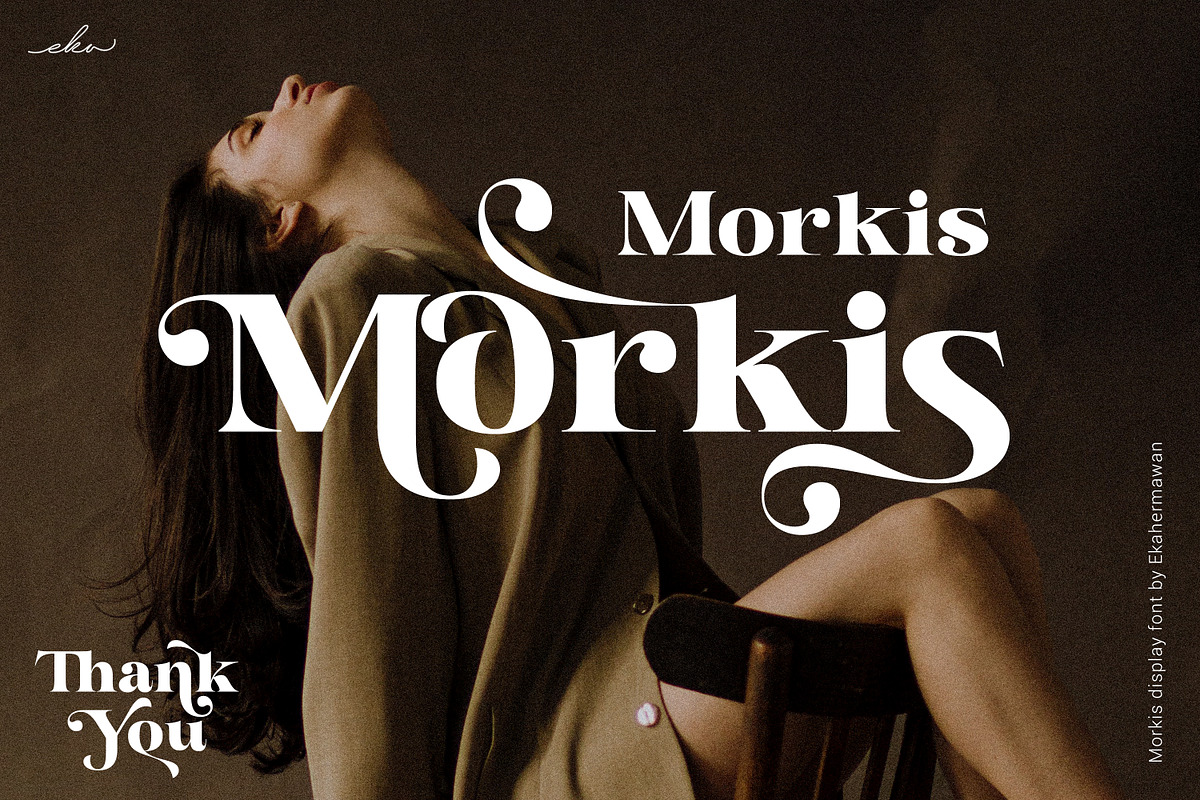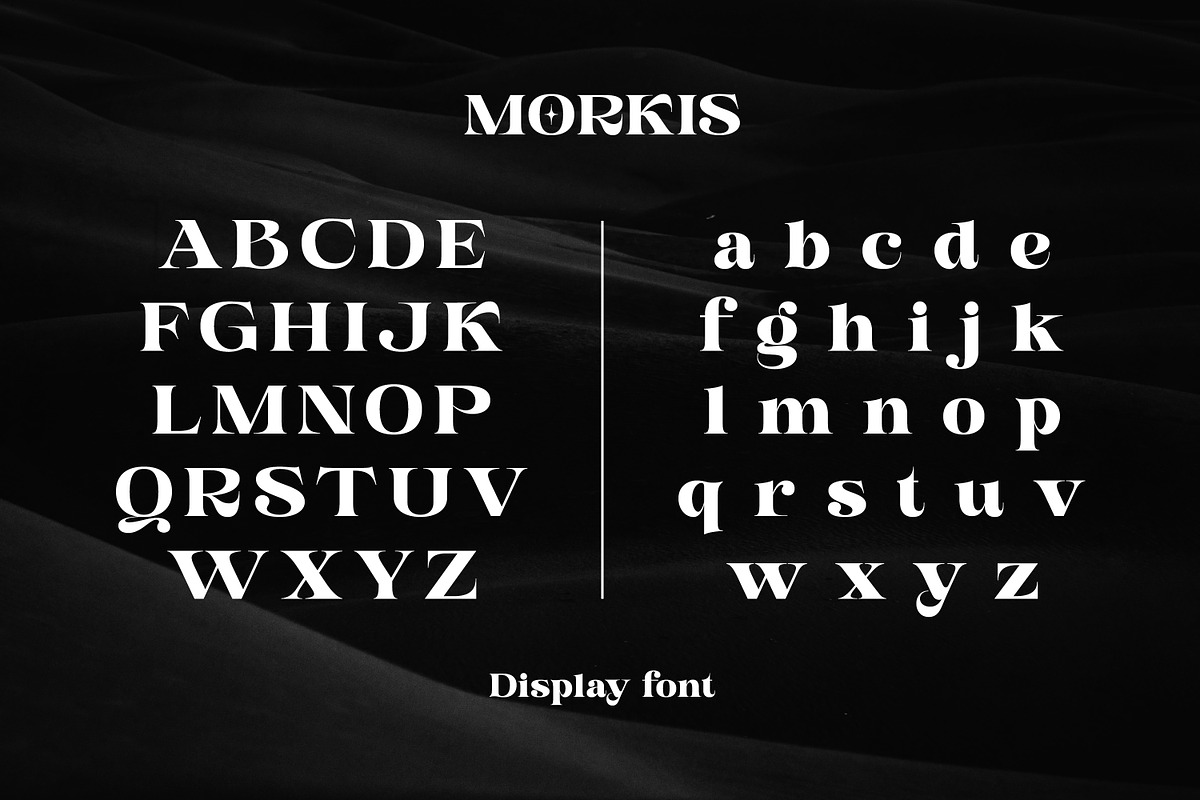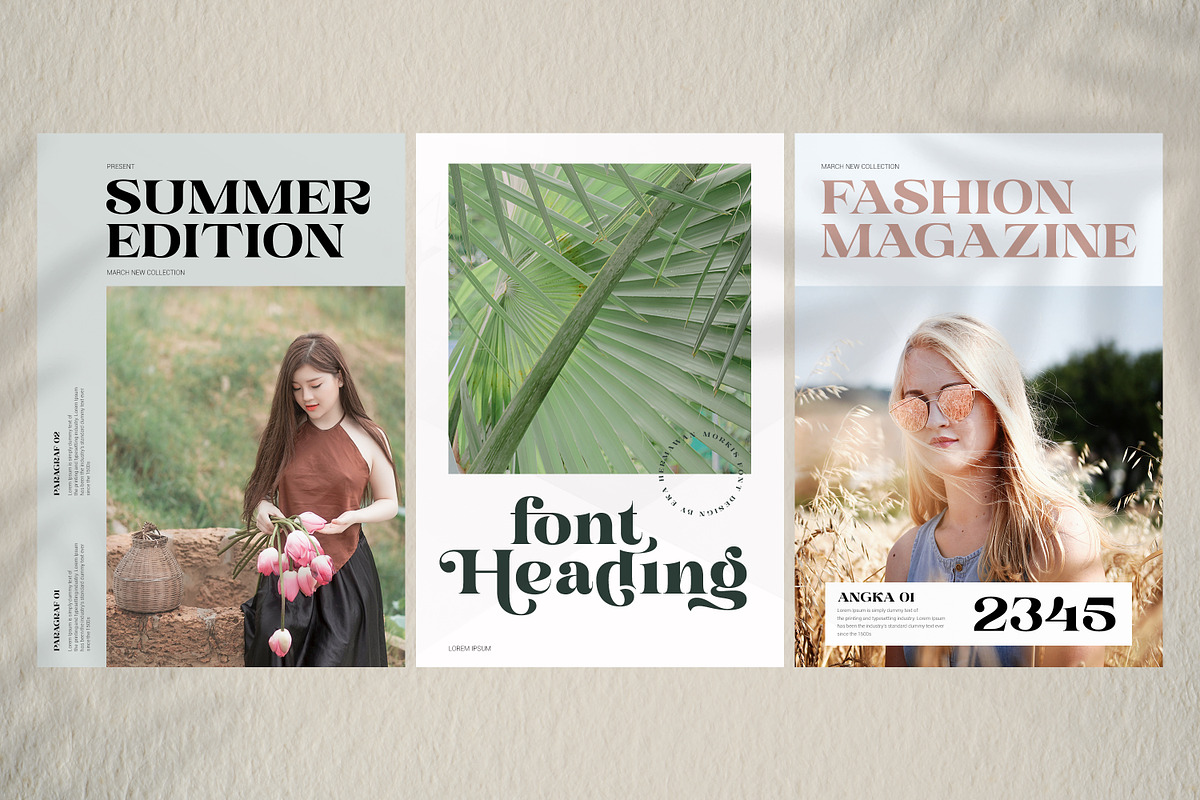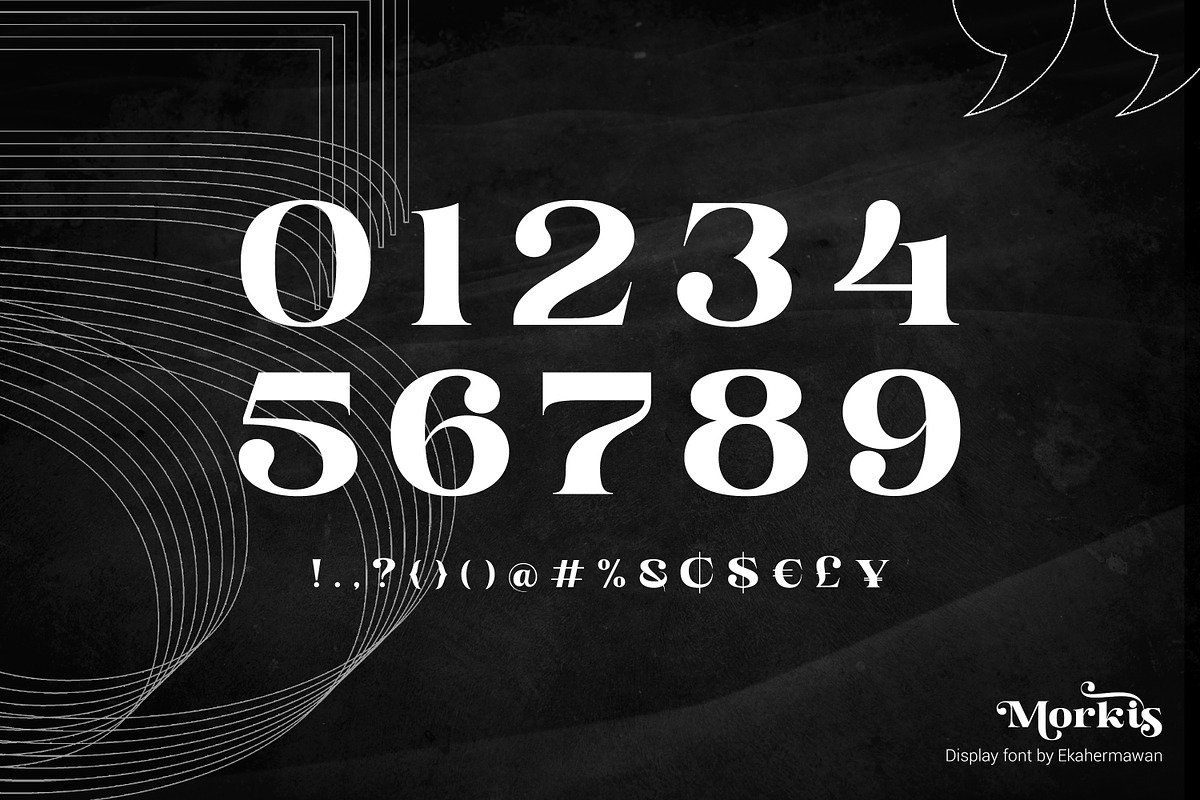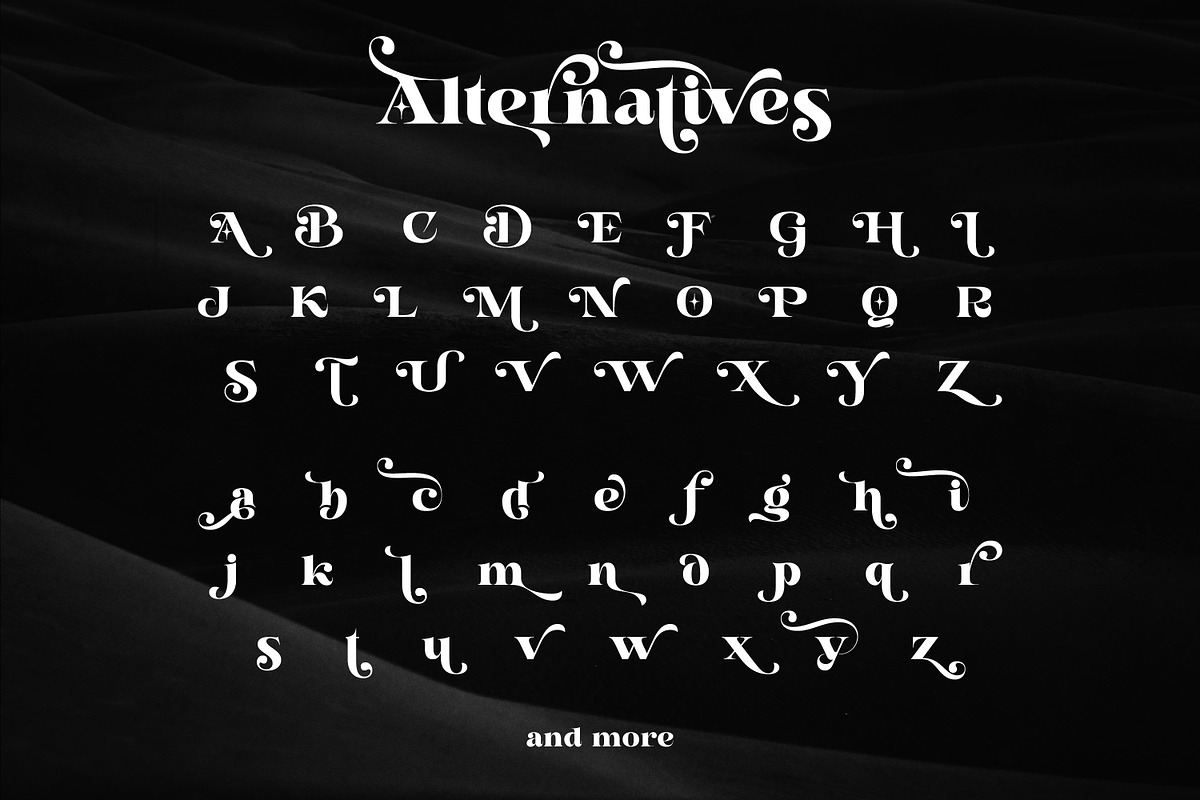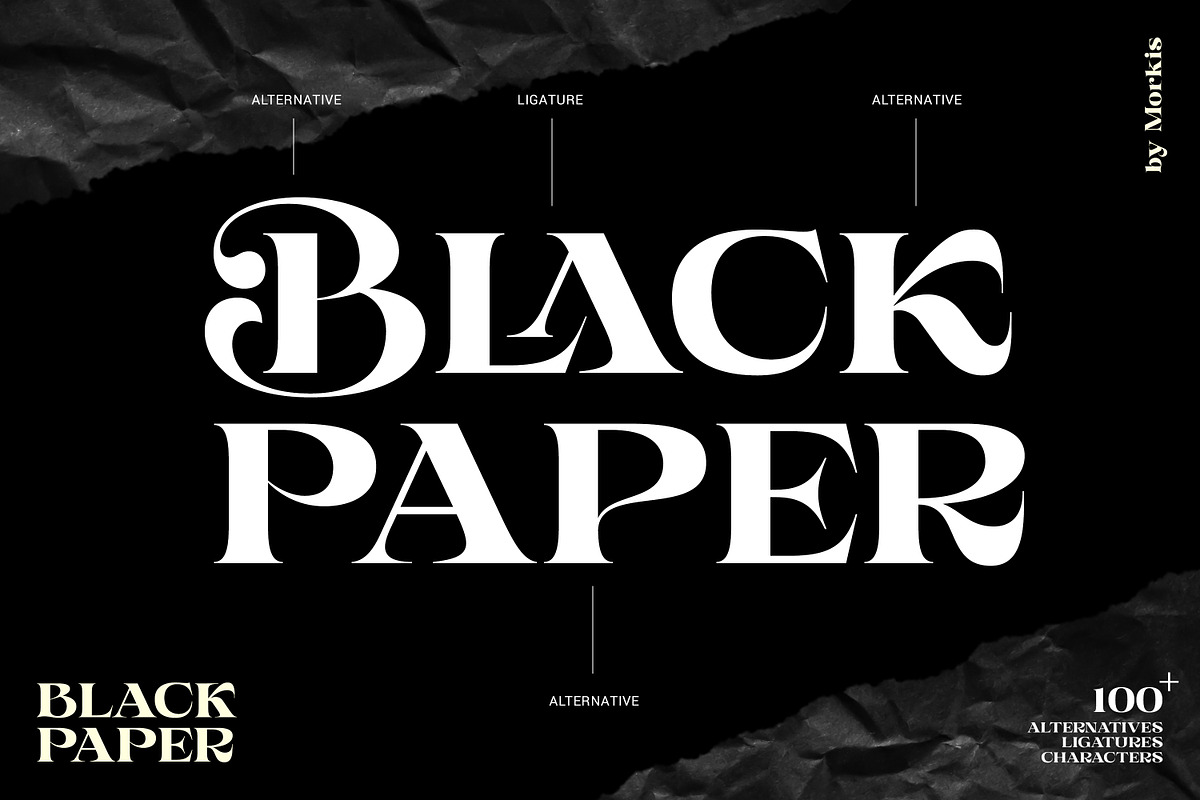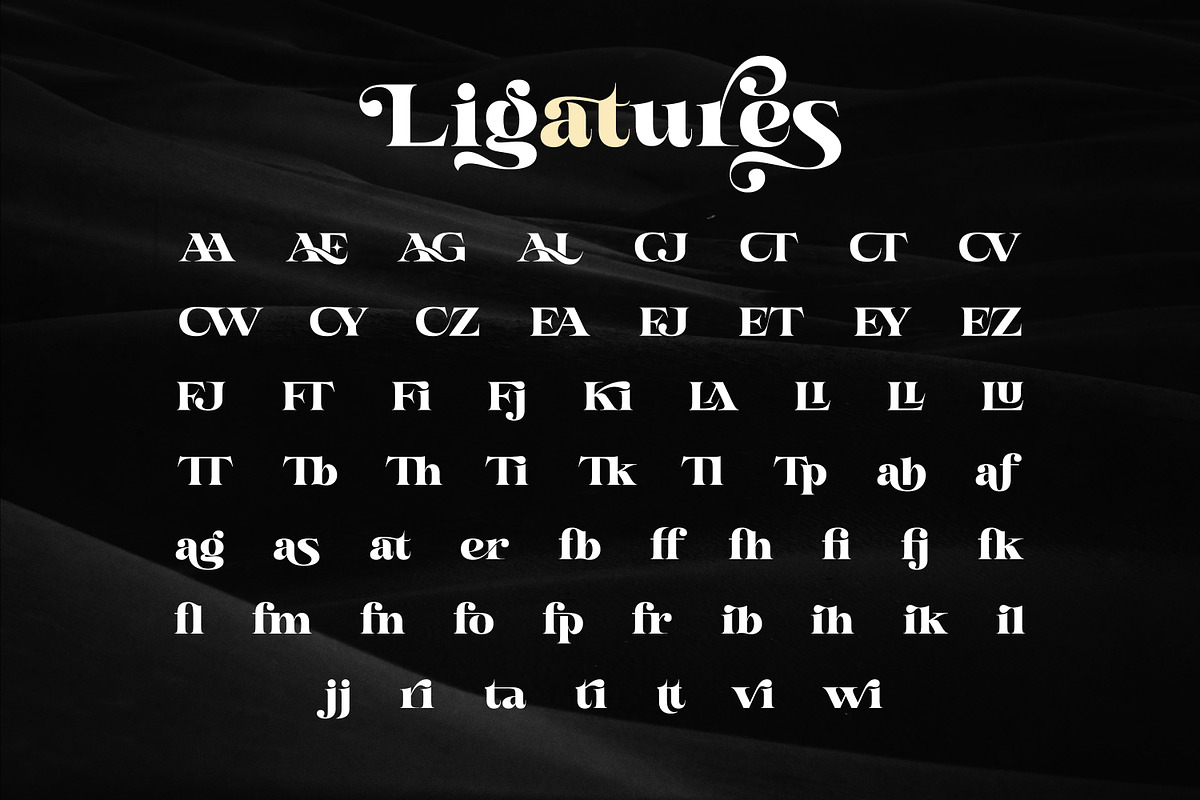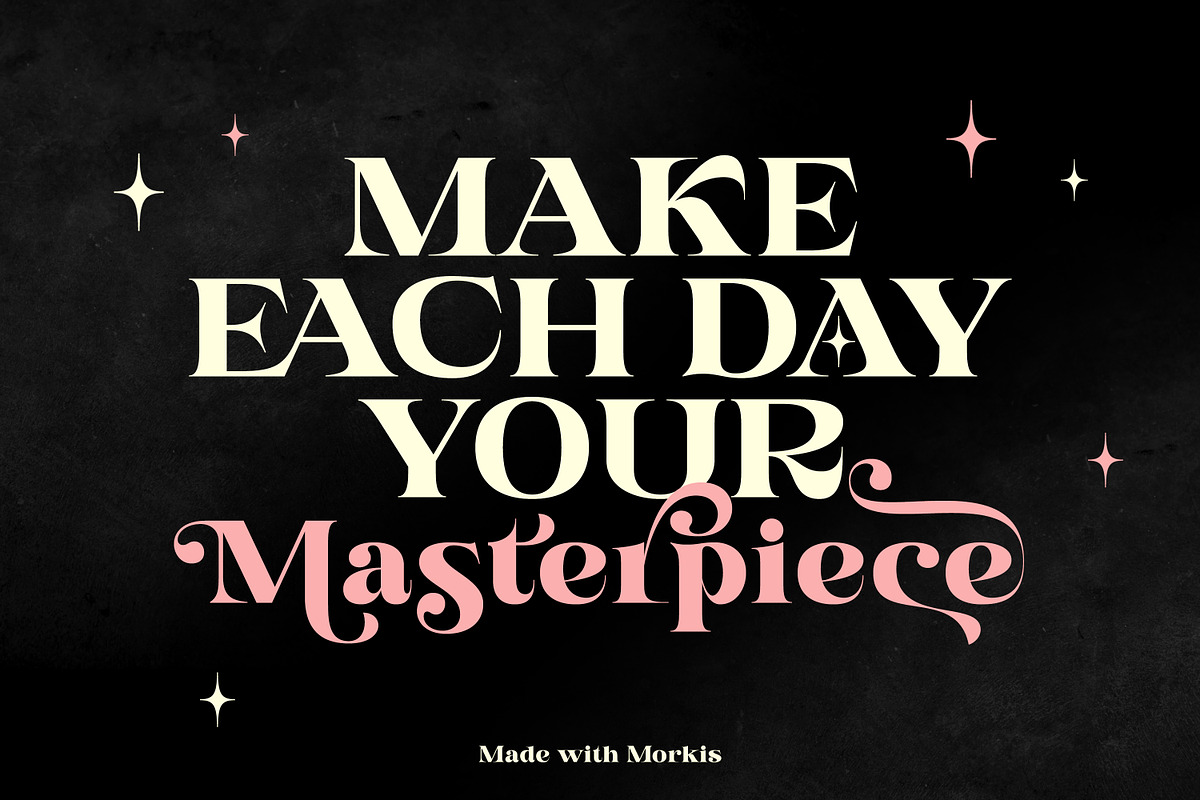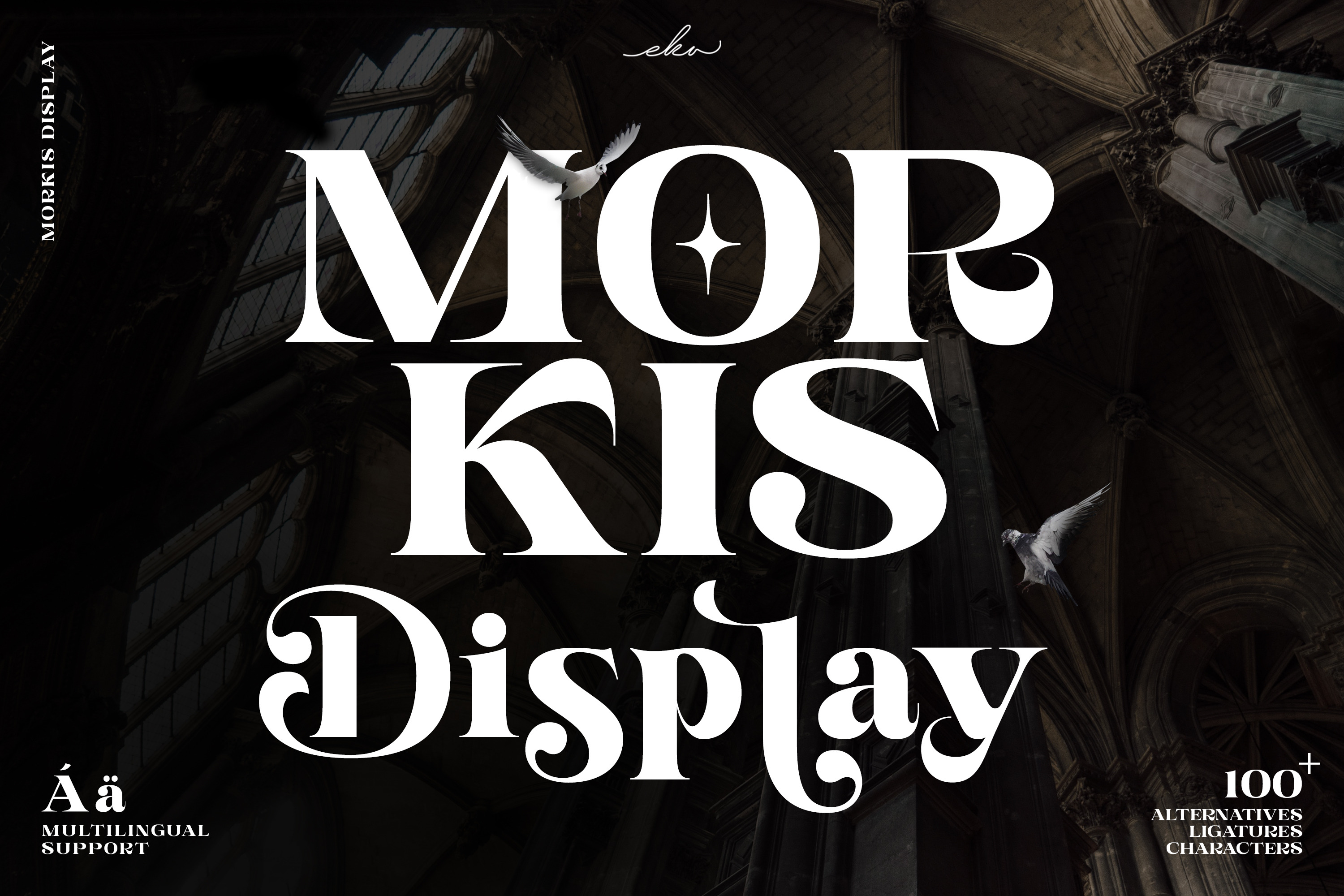
Morkis - Display Serif Font
Morkis is an elegant serif font that specially designed to make your design looks more unique and attractive. The alternatives and ligatures characters make this font more unique and stand out with an elegant style. Morkis is perfect font to apply in many different projects such as logo design, branding, poster, magazines, labels, quotes card, wedding card, merchandise, invitation, presentation, advertising and so much more!
- Playfull to use (with ligatures and alternatives characters)